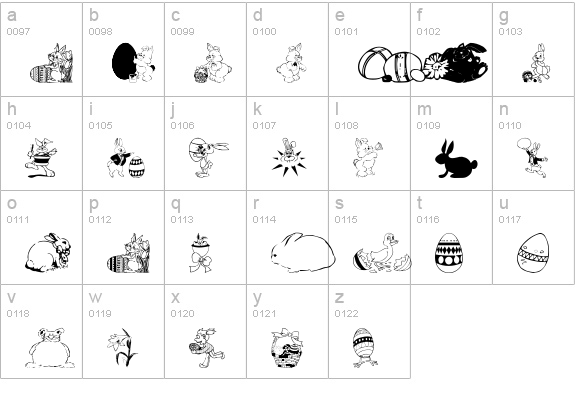
wmeaster1 Font Details
The wmeaster1 font is a charming and whimsical typeface that brings a touch of fun and playfulness to any design project. With its unique and intricate letterforms, this font is perfect for adding a touch of personality to invitations, greeting cards, and other creative projects. The wmeaster1 font is available for free download at FontsMarket.com, making it easily accessible for designers and creatives looking to add a unique flair to their work. Embrace the creativity and individuality of the wmeaster1 font in your next project and watch as it brings a smile to your audience's face.